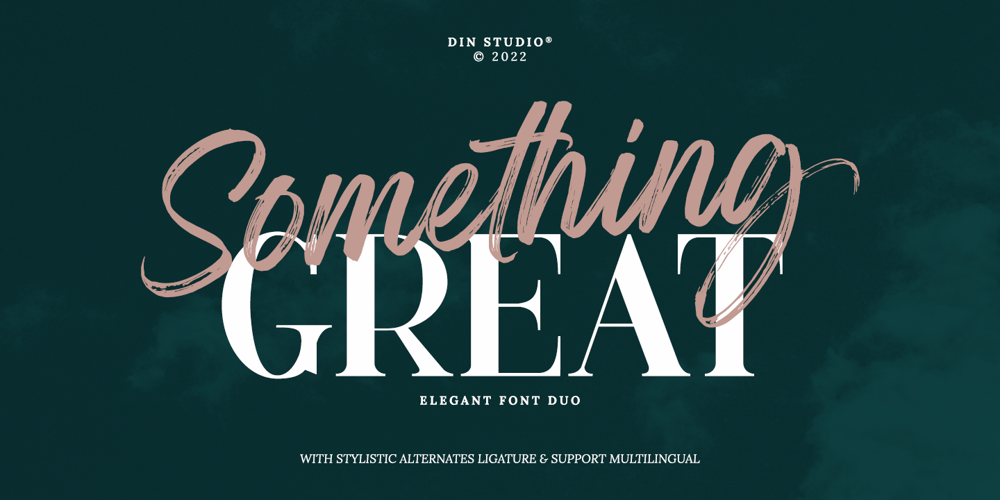
Something Great
Something Great Font Family was designed by Donis Miftahudin and published by Din Studio. Something Great contains 2 styles and family package options. Need that perfect statement fonts for your designs? Get them the beautiful Something Great., a beautiful font duo. Through the script font, Something Great brings your design to delve deep into the world of elegance, while the serif font creates modern look. This font duo can be combined as a splendid set, or worn separately, with each possessing a head-turning magnificence of its own. Features: Stylistic Sets Ligatures Multilingual Supports Numerals and Punctuations Thank you for purchasing premium fonts from Din Studio. If you have any further questions, don’t hesitate to contact us. Happy Designing.